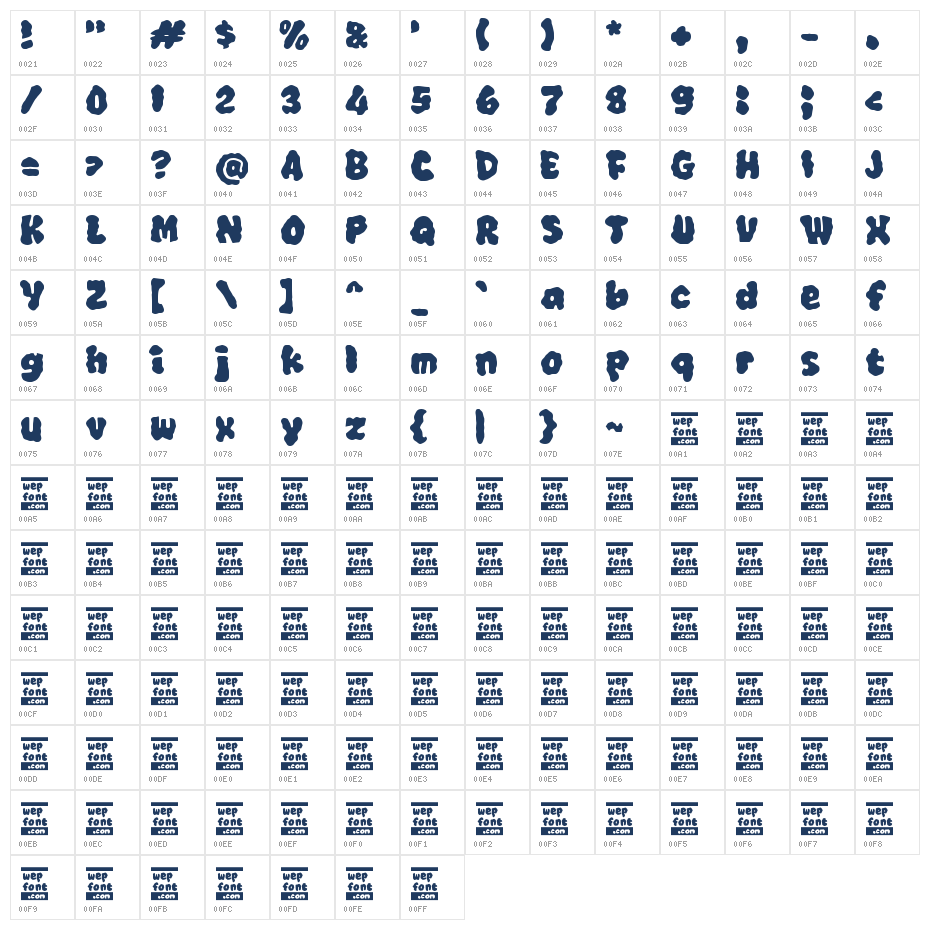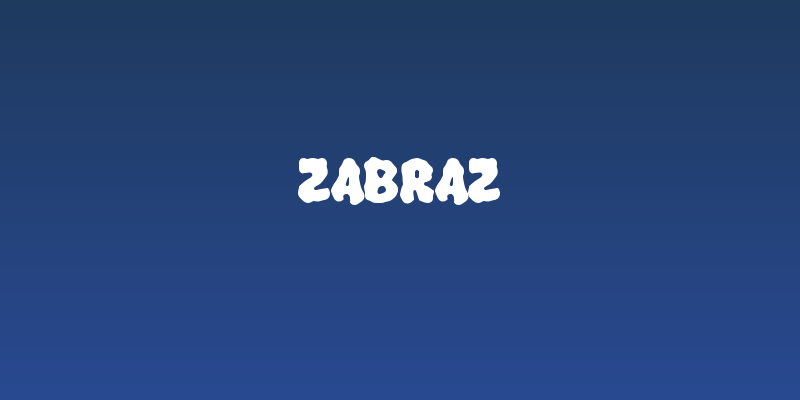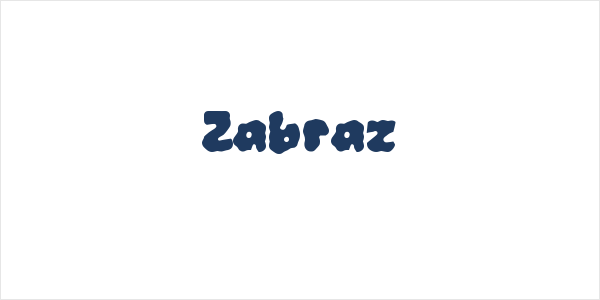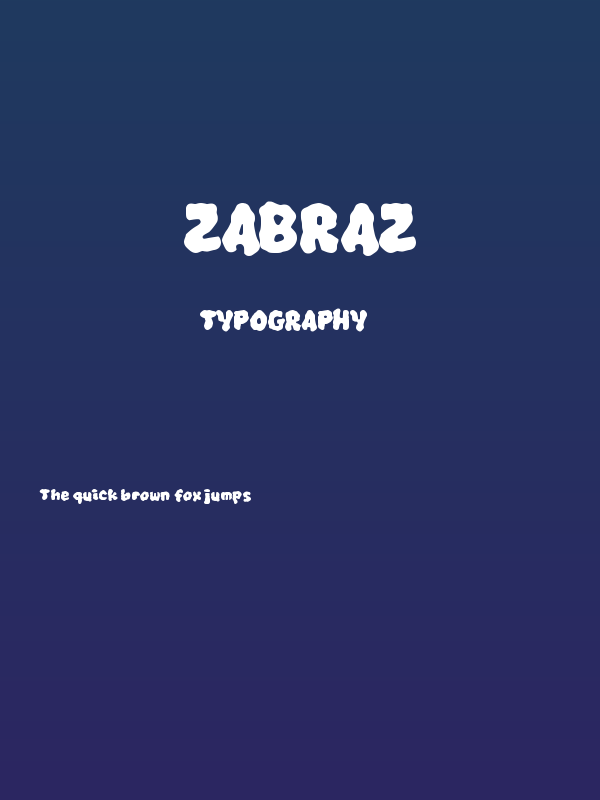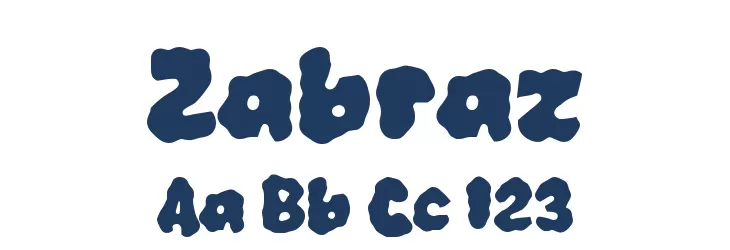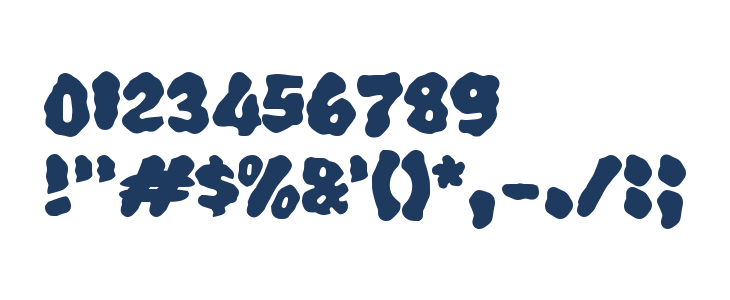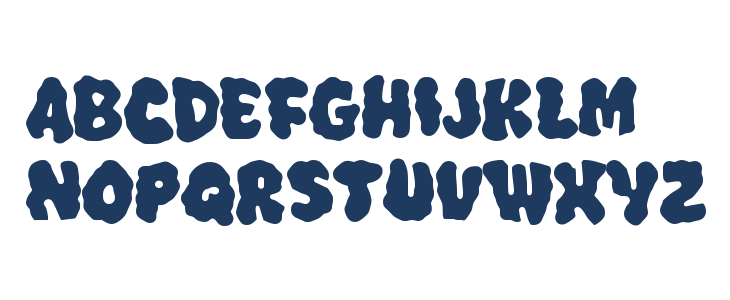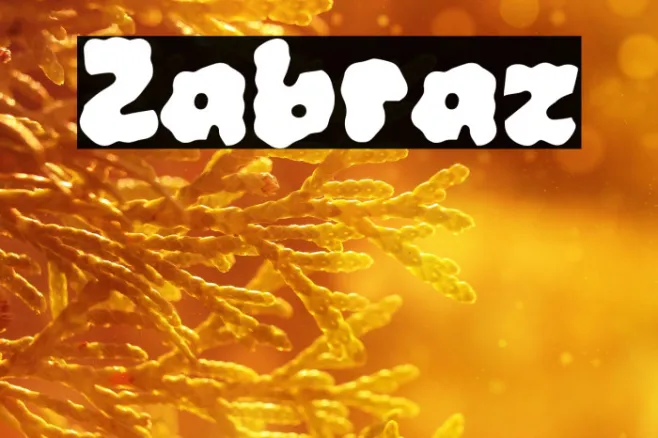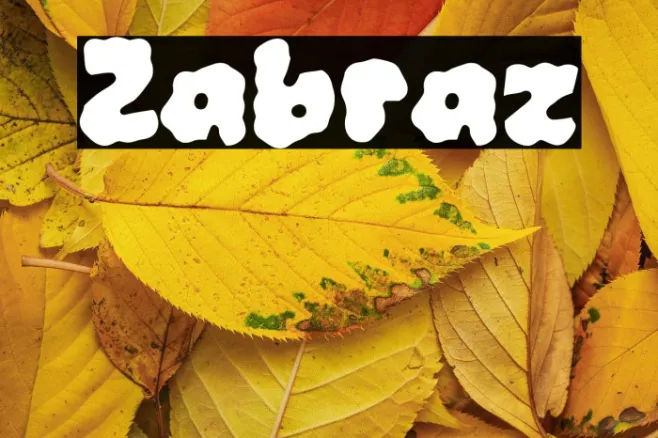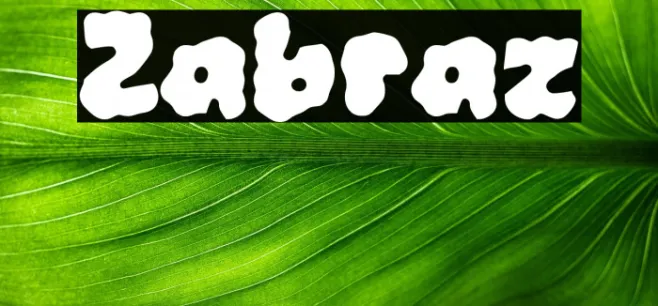
Zabraz Font
Zabraz Description
A bold, playful, and chunky display font with irregular, rounded shapes that resemble blobs or bubbles.
| Overall Style | Playful, Bold, Chunky |
| Use Case | Headlines, Logos, Posters, Packaging |